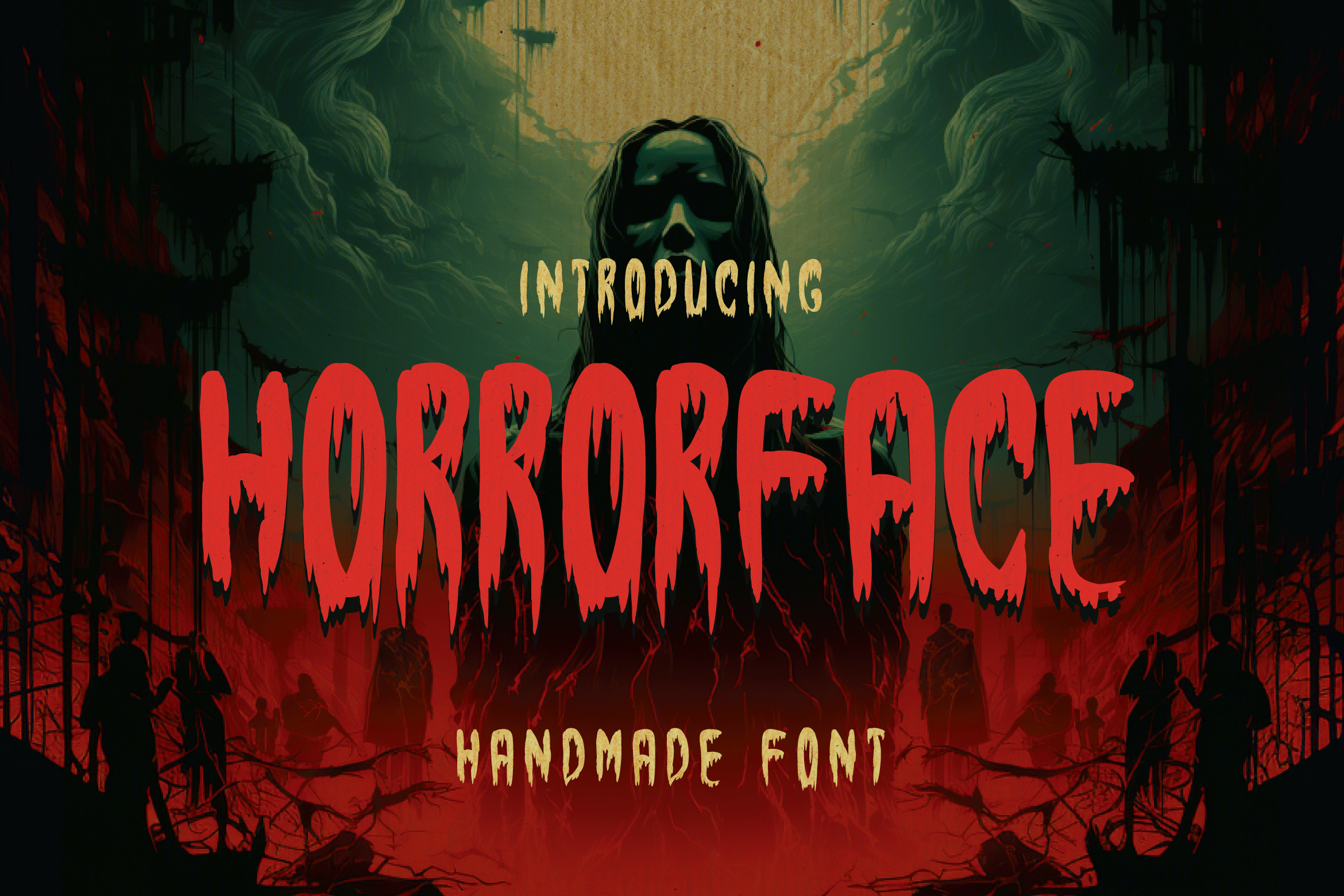
Horrorface - A Handmade Horror Font
Horrorface is not just a font; it's an invitation to delve into the depths of darkness and horror. Crafted with meticulous detail, this handmade font is designed to send chills down your spine.
Each letter is a work of art, exuding an eerie and sinister aura that's perfect for horror-themed projects. Whether you're working on spooky posters, chilling book covers, or haunting movie titles, Horrorface adds an element of fear and suspense that captivates your audience and immerses them in the darkest corners of your design.
Horrorface - Handmade Font is a must-have for graphic designers, writers, and filmmakers who want to evoke terror and suspense in their work. Its versatility allows you to create a wide range of chilling content, from haunted house flyers to ghostly merchandise.
With Horrorface, your text takes on a life of its own, whispering macabre tales and luring readers into a world of fright. Embrace the darkness and let Horrorface be your guide to the spine-tingling realms of horror.